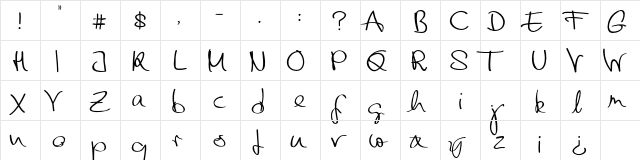
friends DEMO Font Preview
friends DEMO
friends DEMO Font Details
| Style | DEMO |
| Foundry | phitradesign GbR |
| Designer | Christoph D |
Design Context for friends Typeface
friends is a composed and adaptable typeface that performs quietly and consistently across a wide range of design contexts.